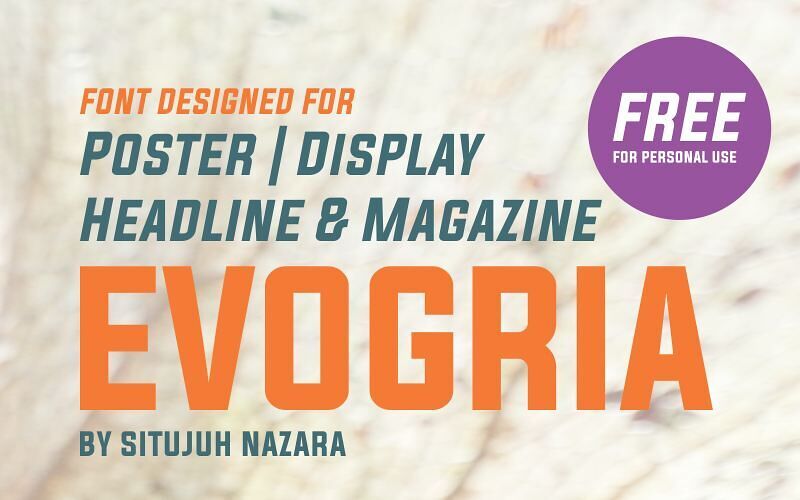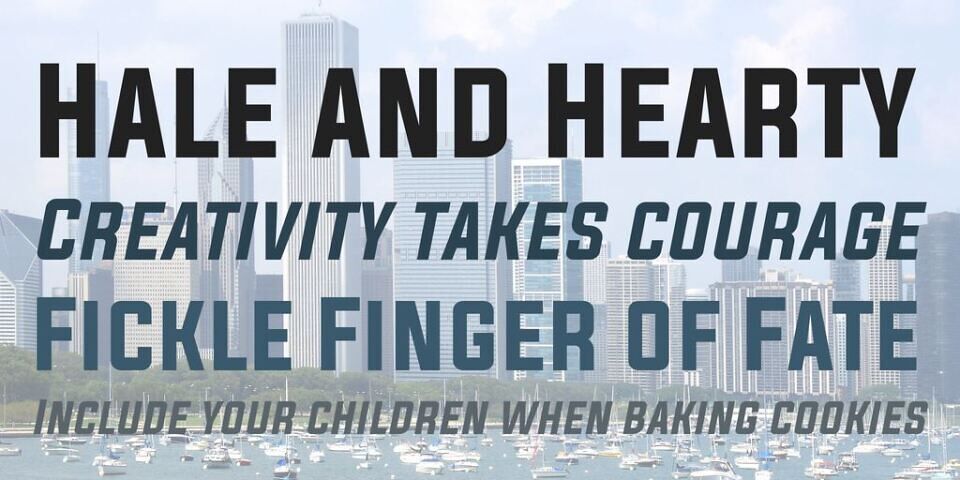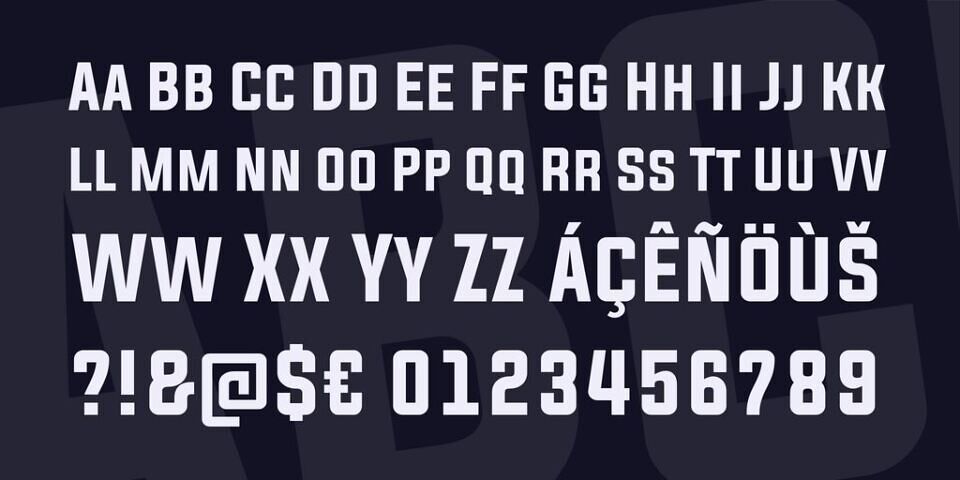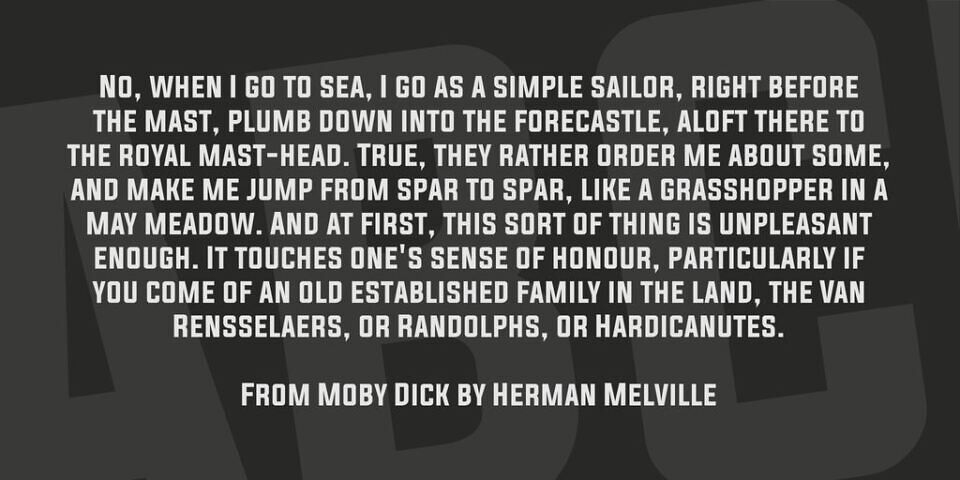
Evogria Font is a bold sans-serif typeface designed for impact. With its clean lines, sharp angles, and geometric structure, Evogria conveys a modern, tech-inspired aesthetic perfect for branding, headlines, logos, and digital interfaces.
The uppercase-only design enhances its strong visual presence, making it ideal for projects that demand attention. Whether used in sci-fi titles, sleek app UIs, or promotional materials, Evogria adds a sense of innovation and bold simplicity to any layout.